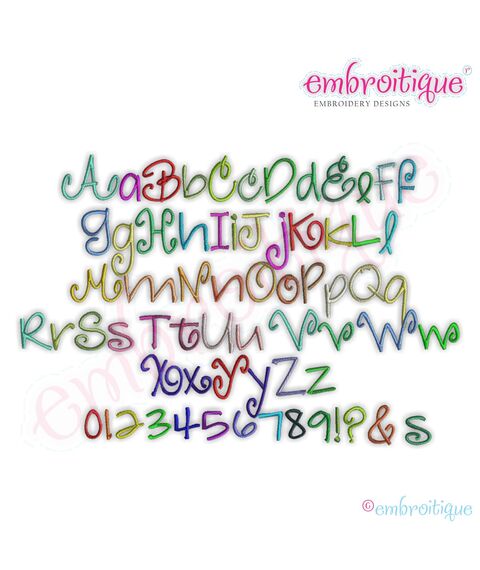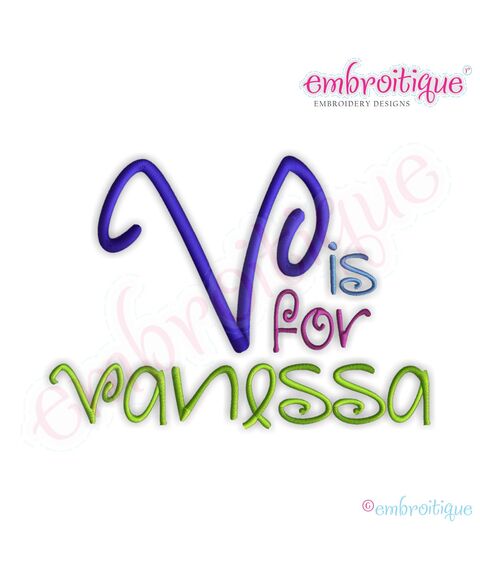
Vanessa Monogram Font Set - Small
This is such a fun  satin-stitch set!  Larger sizes will be released soon!  Each letter is an individual file that you can use to build monograms, names and sayings.
Sizes Included:   1", 1.5" 2", 2.5", 3" - Satin Stitch - Uppercase A-Z, lowercase a-z, 0-9, question mark, exclamation point, ampersand, period, plural ('s)